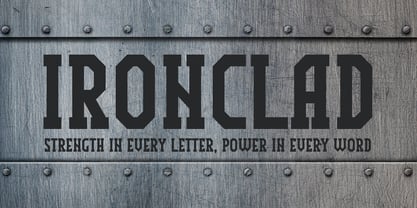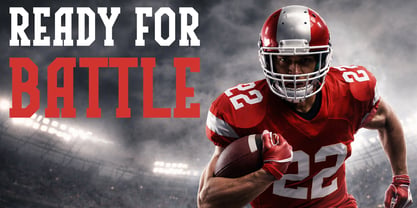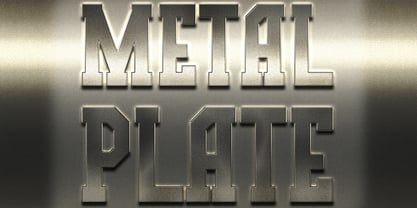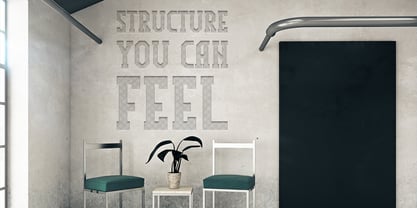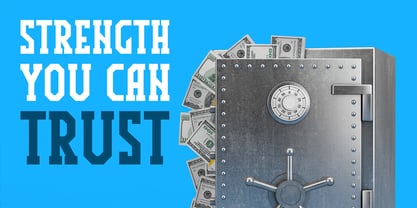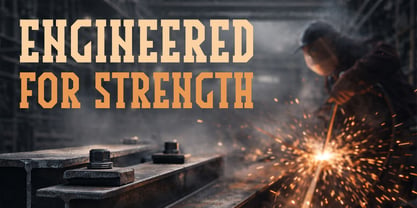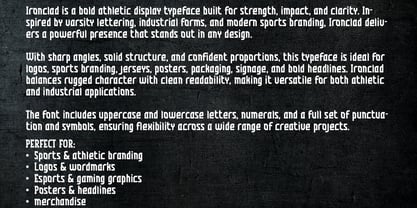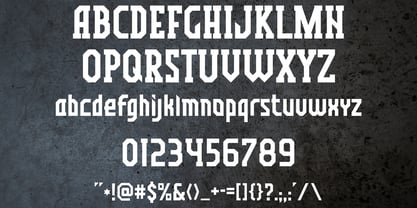
Ironclad
Ironclad is a powerful and commanding athletic display typeface designed for maximum impact and clarity. Inspired by the rugged geometry of industrial forms and the high-energy aesthetic of modern sports branding, this font delivers a confident presence in any design. Its solid structure and sharp angles make it an ideal choice for creators looking to convey strength, durability, and professionalism. This versatile typeface is meticulously crafted for high-visibility applications. It is perfect for professional sports team logos, varsity lettering, esports branding, and gym apparel. Beyond the field, its "built-to-last" industrial character excels in heavy-duty packaging, bold event posters, construction signage, and cinematic headlines. Ironclad includes a comprehensive set of uppercase and lowercase letters, numerals, and essential punctuation, ensuring full flexibility for your creative projects. Whether you are designing for a stadium scoreboard or a premium tool brand, Ironclad provides the muscularity and readability your project demands.